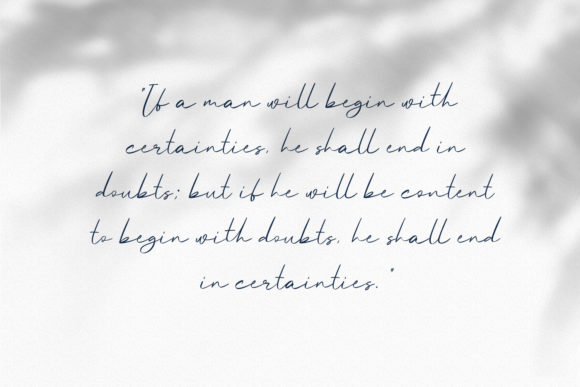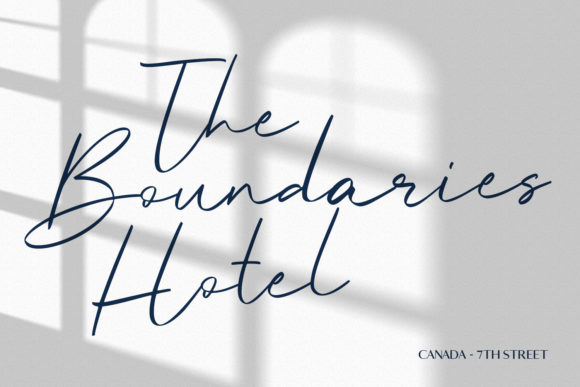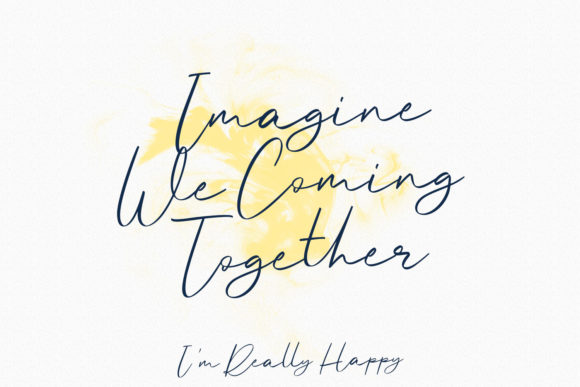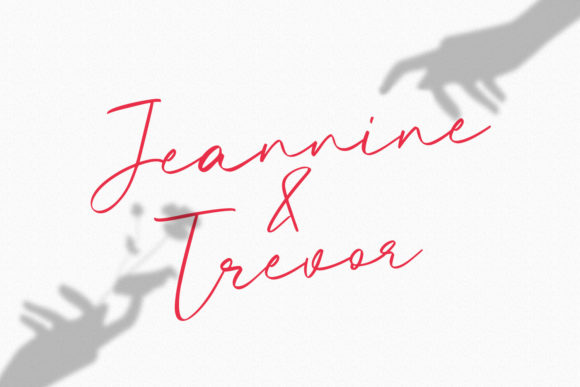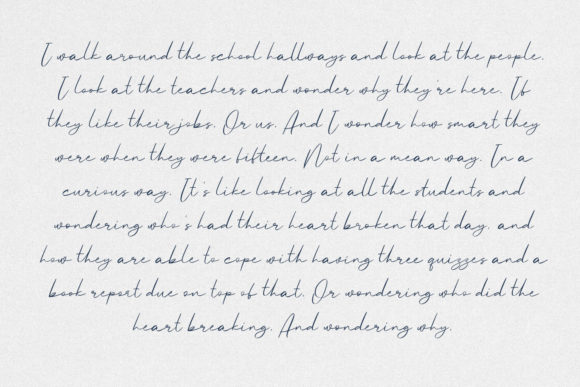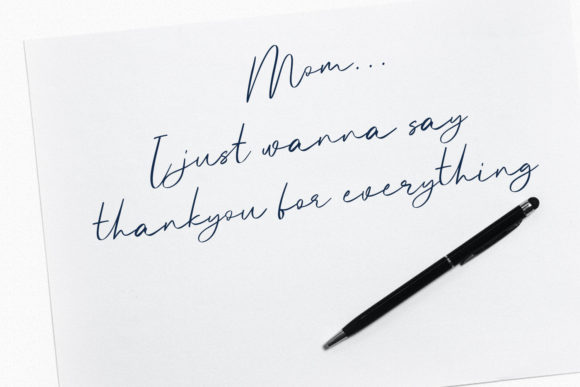
Introduction to Oxyless Script Font
Have you ever stared at a blank page, waiting for the perfect font to spark your creative project? I know I have. The blank slate can be intimidating, but what if you had the perfect design resource at your fingertips? That’s where the Oxyless Script Font comes in – a beautiful and refined script font that’s sure to elevate your work.
With its classy, elegant, and modern look, the Oxyless Script Font is a versatile design tool that can be used for a wide range of creative projects, from logos and branding to invitations, stationery, and social media posts. Its high-quality design makes it a valuable resource for designers who demand the best.
Key Features of Oxyless Script Font
- High-quality, handwritten script font suitable for various creative projects, including logos, invitations, and advertising materials.
- Unique characteristics include swashes, flourishes, and ligatures, adding a touch of elegance and sophistication to any design.
Honest Review: Oxyless Script Font
I recently had the chance to work with the Oxyless Script Font, and I must say it’s been a delightful experience. This font is perfect for any creative project that requires a high-quality, elegant touch. Its beautiful, cursive script is sure to impress, and it’s available for free download, making it an amazing design resource for anyone.
- ✨ Beautiful, high-quality design: The Oxyless Script Font is a stunning addition to any project, with its intricate, cursive script and elegant feel.
- ⚠️ Limited customization options: While the font itself is beautiful, there aren’t many customization options available, which can be limiting for some designers.
- ⚠️ Not ideal for bold text: Due to its cursive script, the Oxyless Script Font isn’t ideal for bold, large text, as it can become difficult to read.
Overall, I’m thoroughly impressed with the Oxyless Script Font. Its beautiful design and transparent background make it a great addition to any project, and the fact that it’s free to download is a huge bonus. While it may have some limitations, I’d highly recommend it to anyone looking for a high-quality, elegant font for their next creative project.
How to Use Oxyless Script Font
To get the most out of the Oxyless Script Font, experiment with different font sizes, colors, and backgrounds. You can also combine it with other design elements to create a unique visual effect.
The Oxyless Script Font is perfect for creative projects that require a high-quality, elegant font. Some common use cases include:
- Product packaging and labels
- Editorial and magazine design